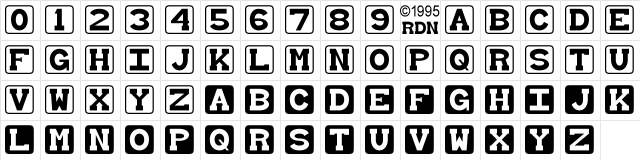
Baby Blocks regular
Design Context for Baby Blocks Typeface
Baby Blocks is a composed and adaptable typeface that performs quietly and consistently across a wide range of design contexts.